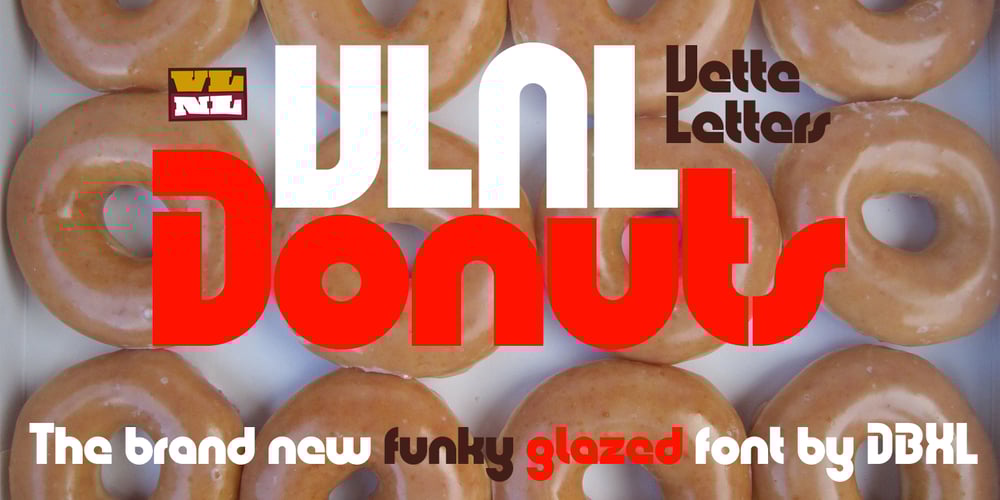
VLNL Donuts Font Family was designed by Donald Beekman and published by VetteLetters. VLNL Donuts contains 1 styles and family package options. VLNL Donuts’ first incarnation was designed already in 2005 by DBXL as a logo for Dutch funky house music outfit Hardsoul, and since then has been used for lots of music related projects. Donuts is heavily infused by hip 1970s geometric fonts like Blippo, Pump and ITC Bauhaus, but nonetheless has both feet in this modern day and age. Meticulously designed and tightly spaced, VLNL Donuts is very suitable for logos, headlines and music artwork. We especially recommend using it on big 12″ album covers. Oh, and it got its name for obvious reasons (“the O looks like one…’) VLNL Donuts is deep fried, glazed and can be covered in a variety of sweetness: sprinkles, cinnamon, coconut, chopped peanuts, powdered sugar or maple syrup. They also can be filled with cream, custard or jam. As a very sweet and saturated snack should, VLNL Donuts is fitted with a full set of alternate swoosh caps that can be deployed to liven up your already ‘out there’ designs.